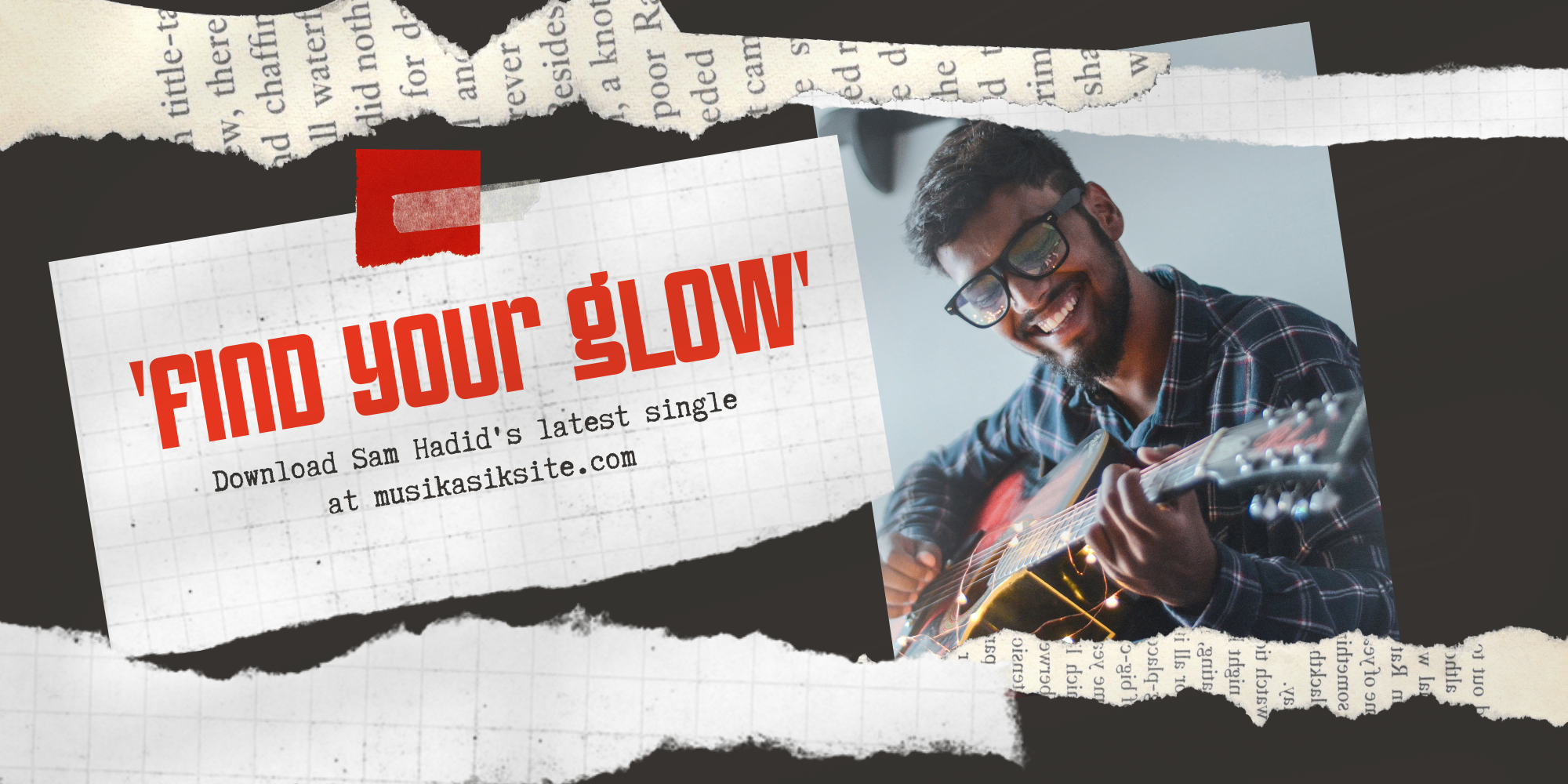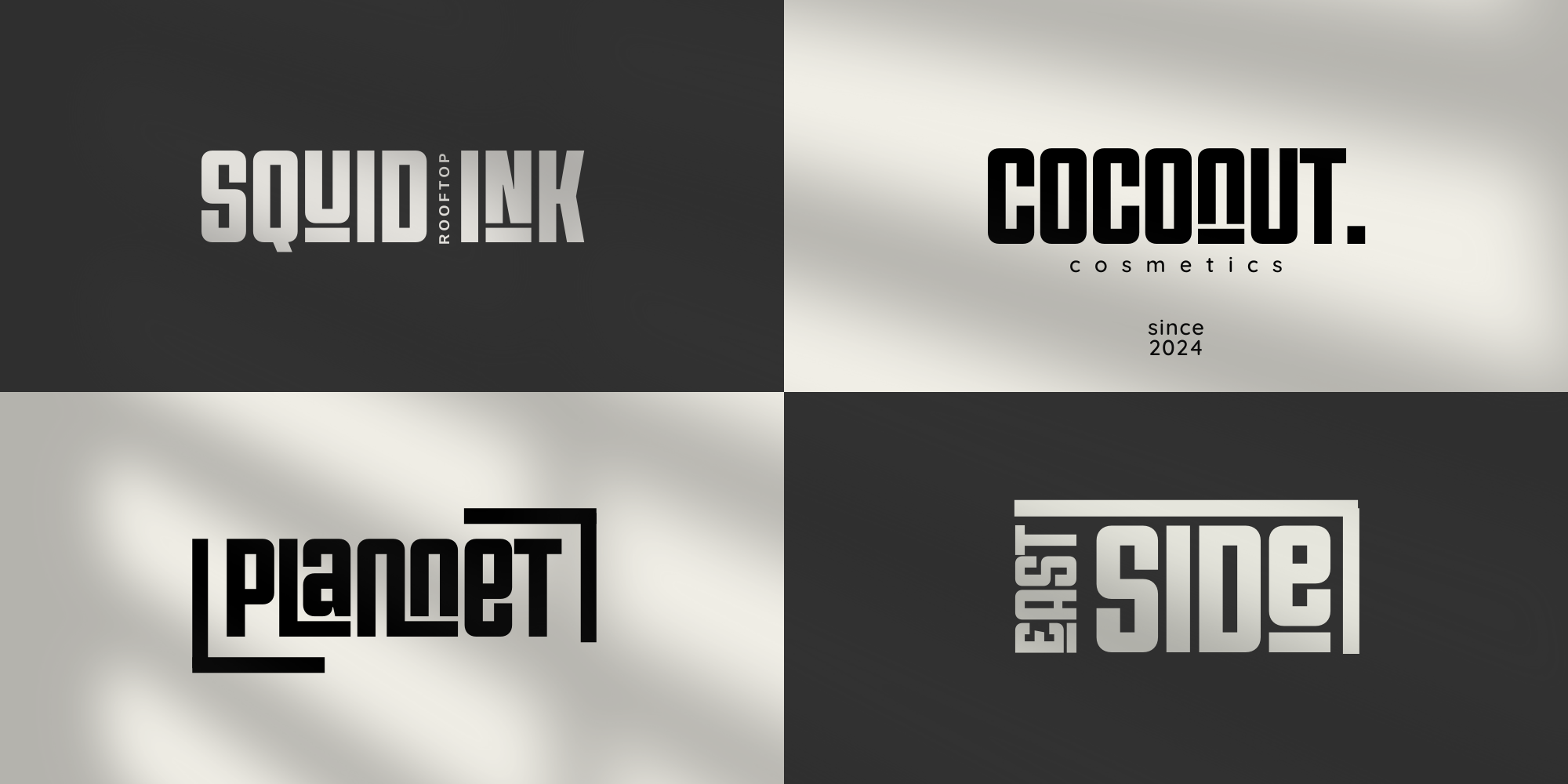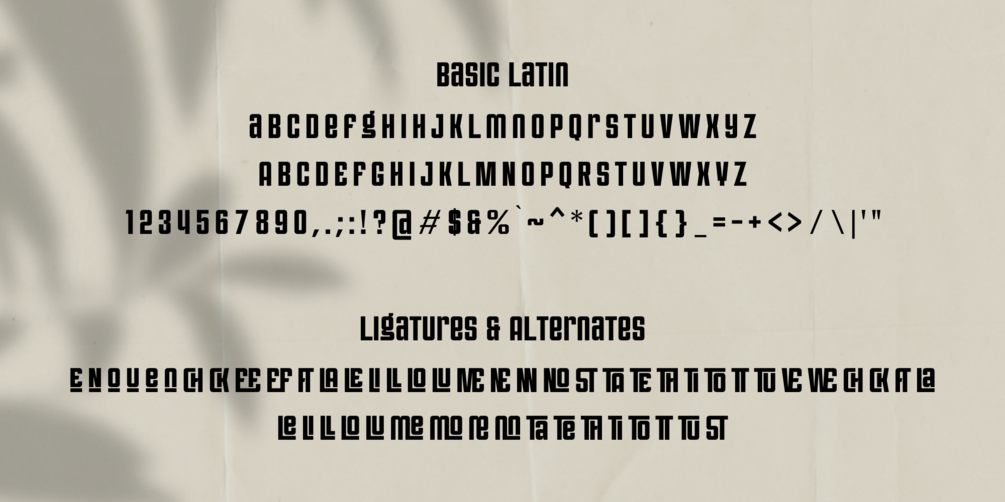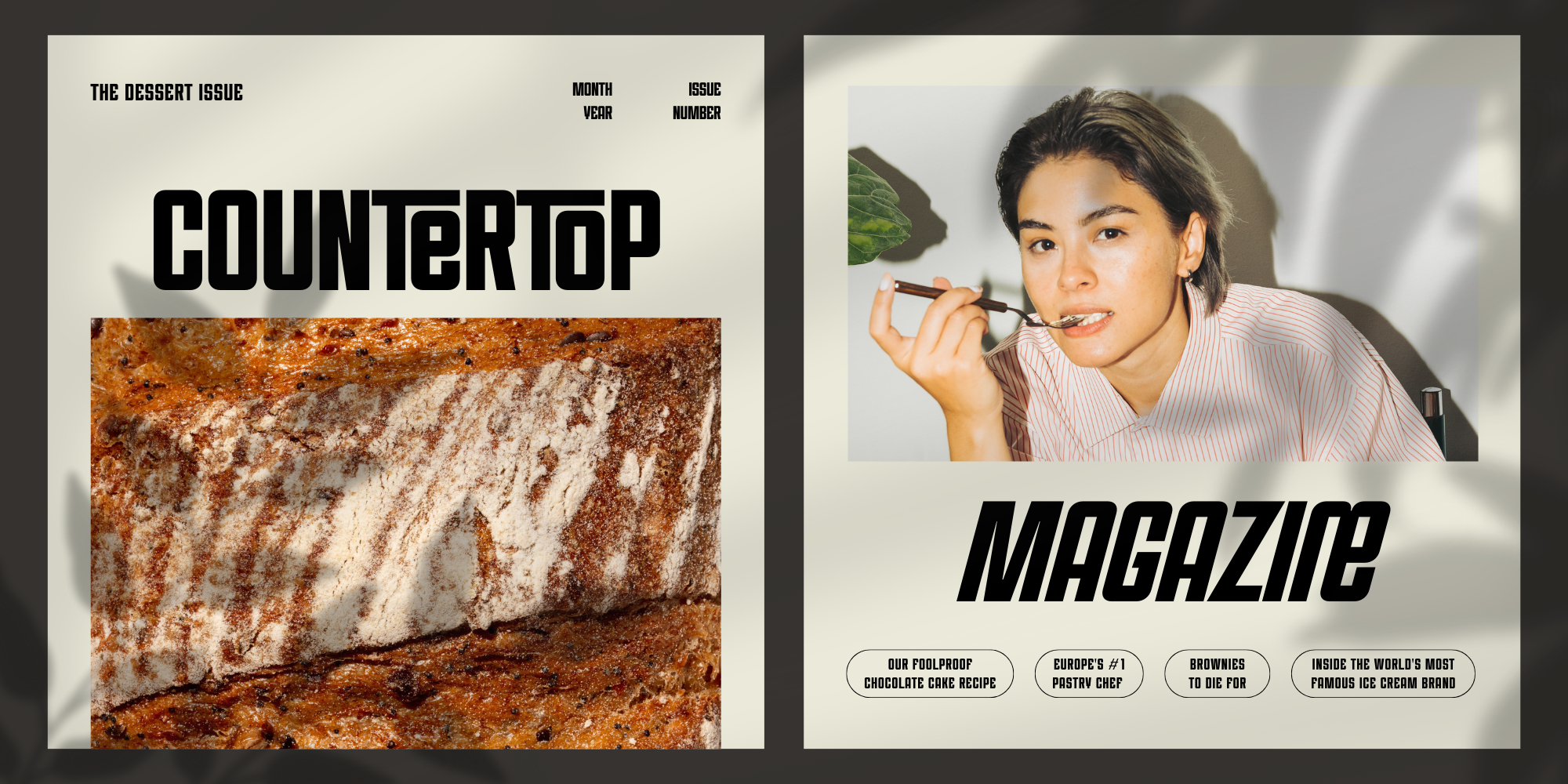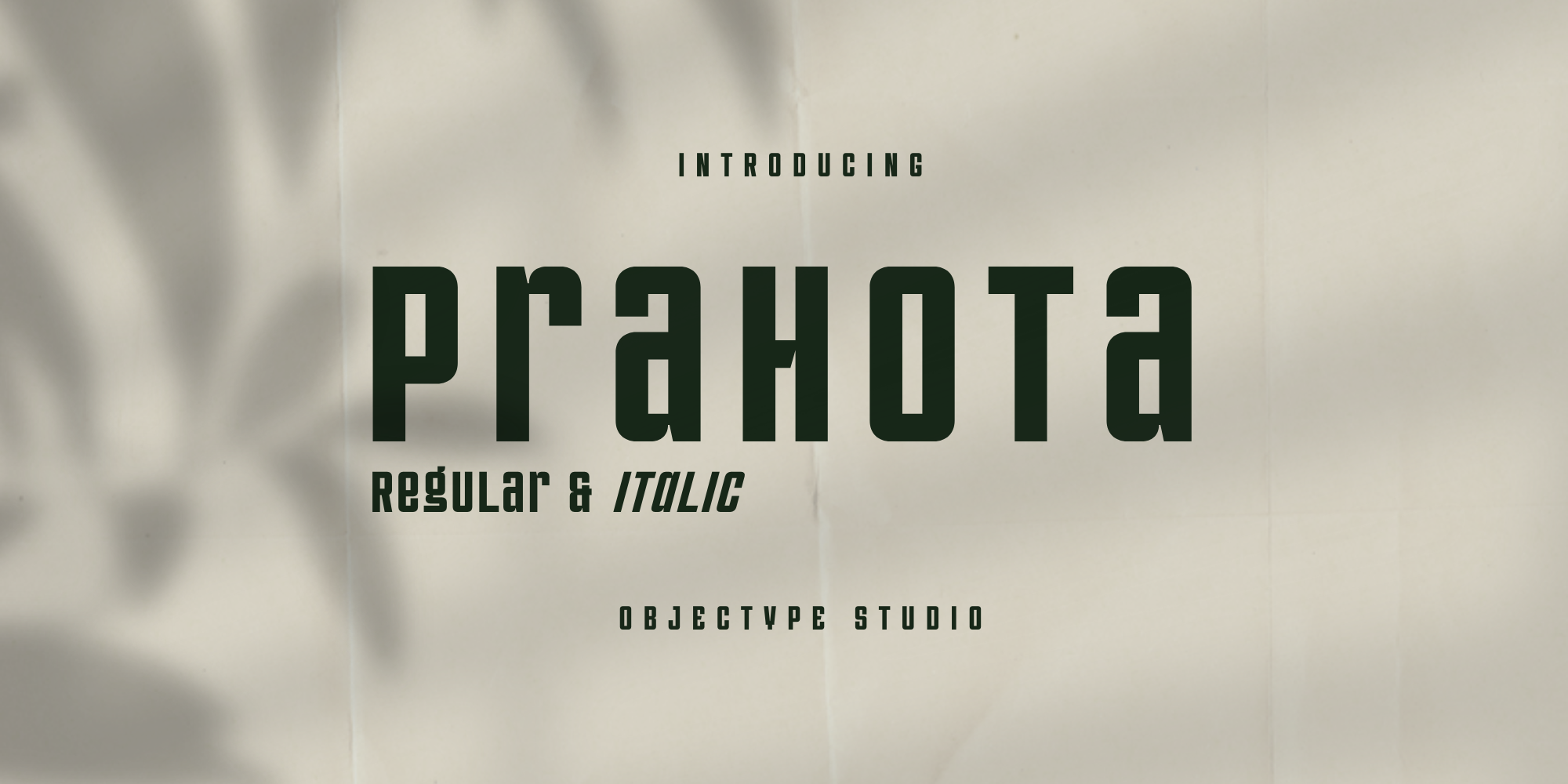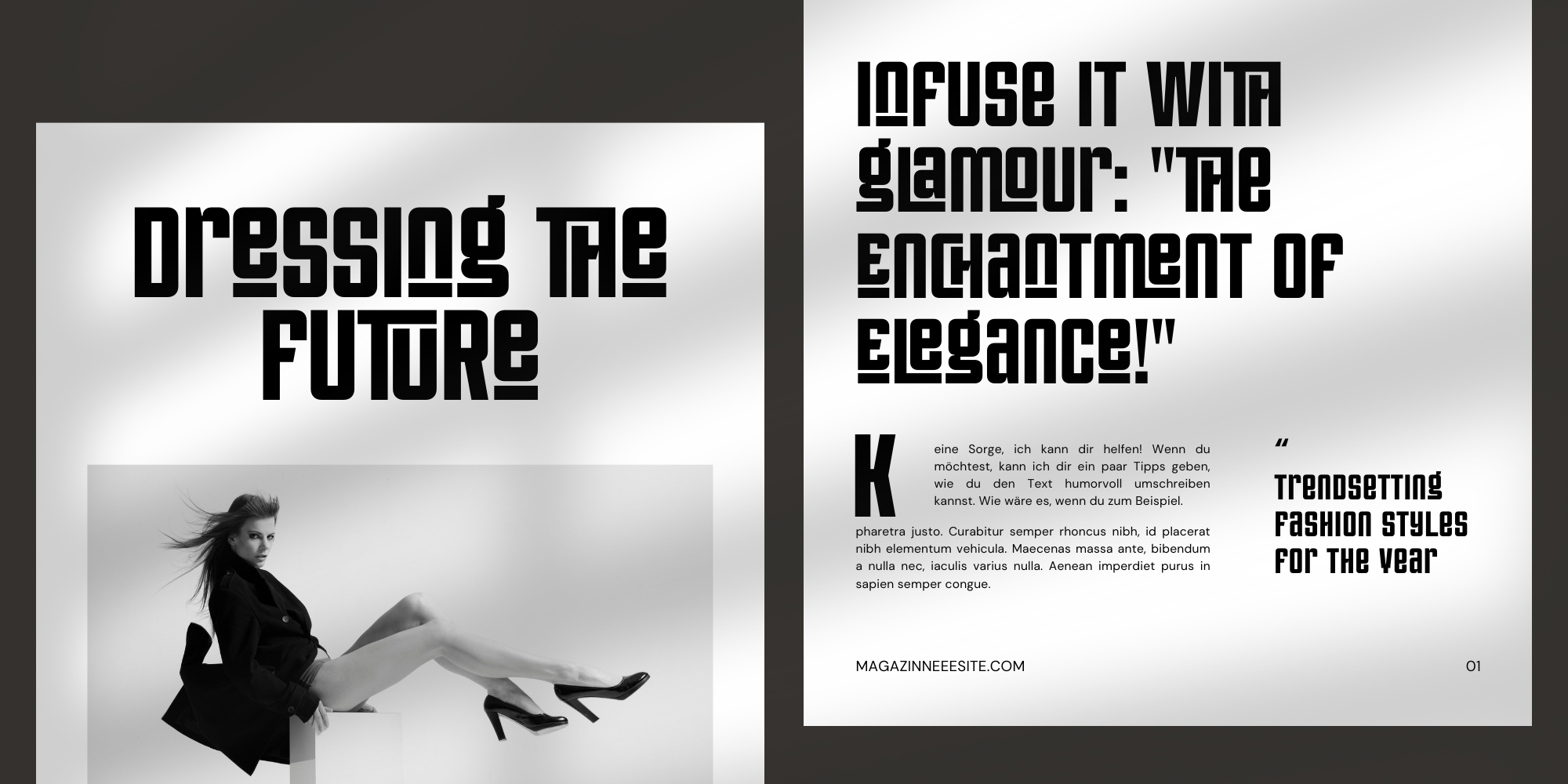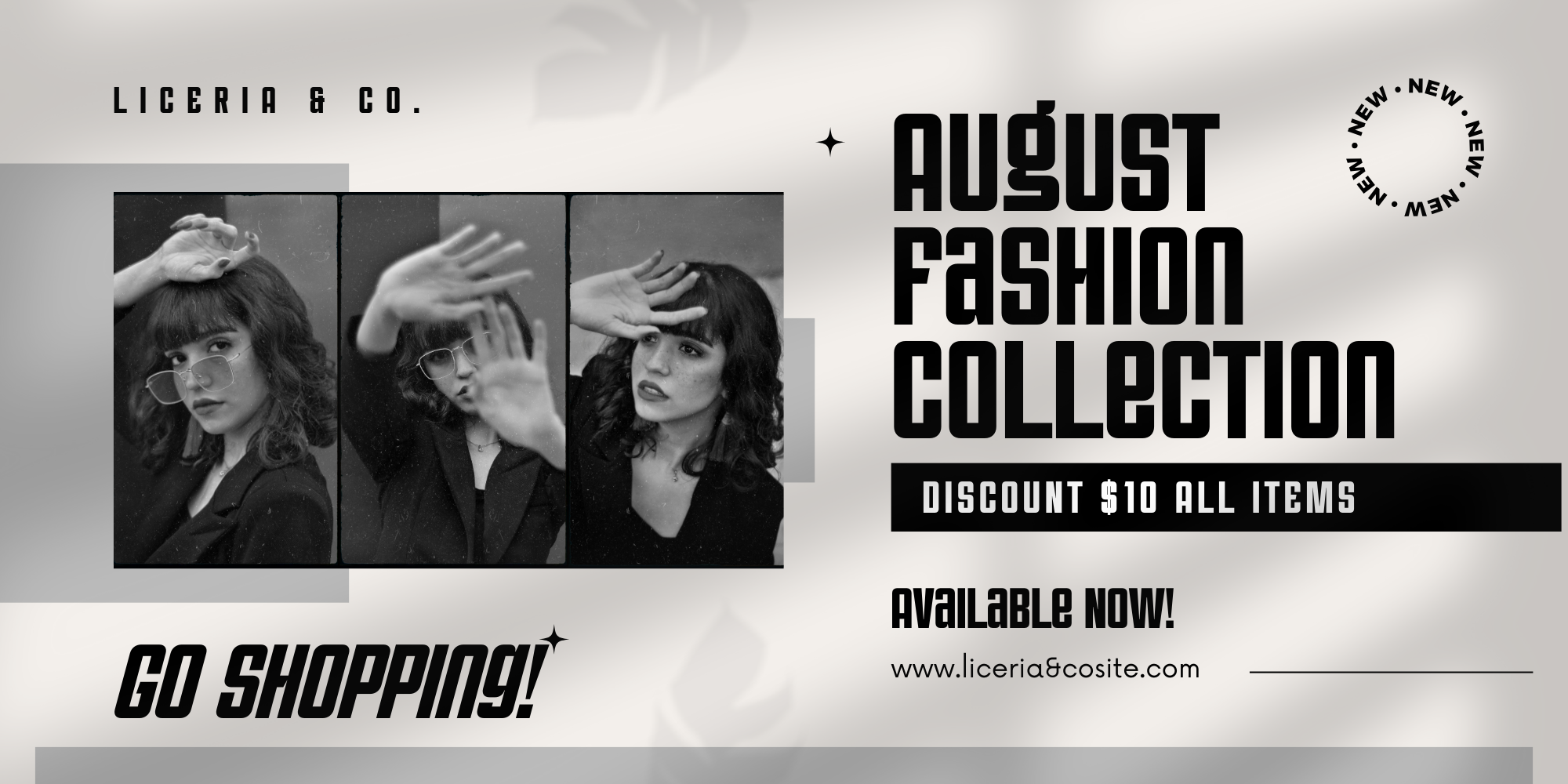
Prahota: A Stylish Typeface Packed with Creative Features
🌟 Prahota – Stylish Modern Typeface with Clean Forms & OpenType Features
Prahota is a sleek and contemporary typeface that blends clarity 🧼, structure 🧱, and style ✨. Designed for versatility and visual impact, Prahota brings a modern edge to any layout—perfect for branding, editorial, digital interfaces, and creative display use.
With balanced proportions and refined details, it’s the kind of font that stands out without shouting.
Use Prahota in:
🏷️ Product packaging, modern branding, and labels
📱 Social media graphics and minimalist quotes
📰 Magazine titles, editorial layouts, and posters
🖥️ UI/UX designs, web banners, and hero text
🎨 Visual identities for fashion, tech, or lifestyle brands
🔧 Full OpenType (.OTF) Features Included:
Prahota includes professional-level features to help you customize and elevate your typography:
🤝 Standard Ligatures – Smooth, intentional letter combinations for improved flow
Stylistic Alternates – Alternative character shapes to add variety and personality
🔠 Complete Character Set – Includes uppercase, lowercase, numbers & punctuation
🌐 Multilingual Support – Covers a wide range of Latin-based languages for global usability
Whether you're designing for packaging, headlines, or brand visuals, Prahota delivers crisp modernity and typographic elegance—ready to take your design to the next level. 🚀